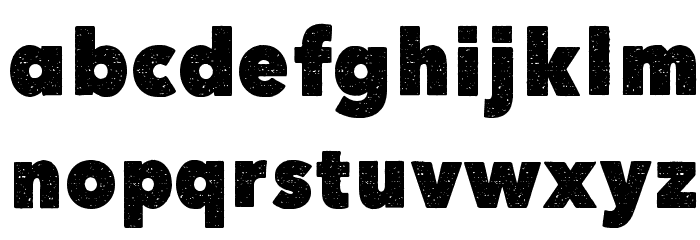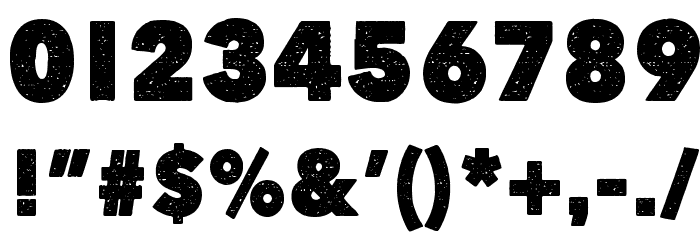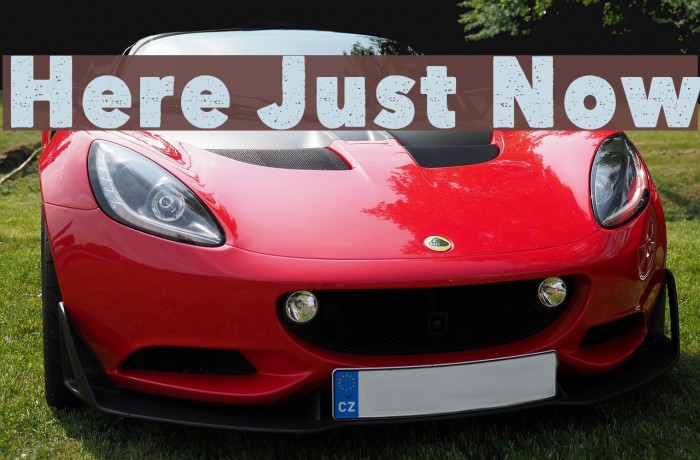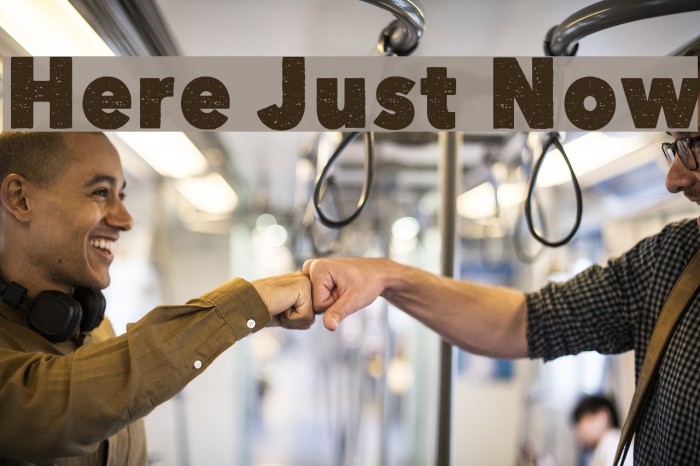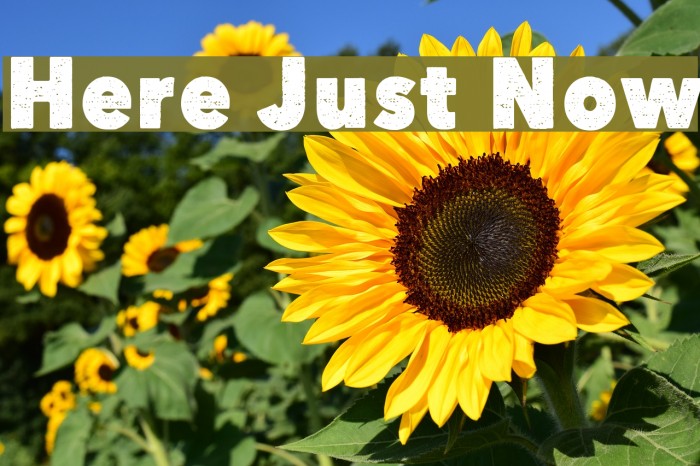
Here Just Now Font
This font features a bold and impactful design with a textured, speckled pattern that gives it a unique, distressed appearance. The characters are uniformly thick, with a consistent stroke width that enhances its boldness. The uppercase and lowercase letters maintain a strong geometric structure, making them easily legible while still retaining a decorative flair. The numbers and special characters follow the same stylistic approach, ensuring a cohesive look across all glyphs. This font's distinctive style makes it stand out, ideal for projects that require a bold statement.
A bold, textured font with a distressed, decorative style.
- Proposed Projects: Ideal for posters, branding, headlines, and any design needing a bold, eye-catching typeface.
- Use Case: Headlines, Posters, Branding